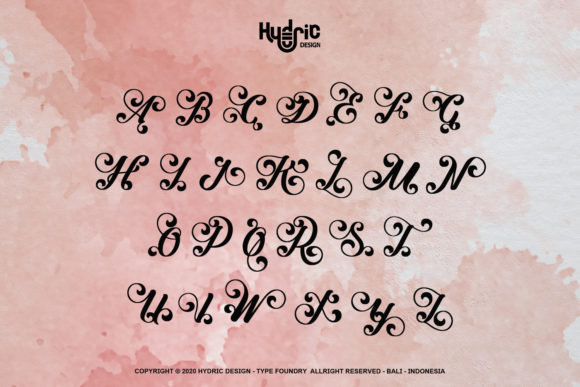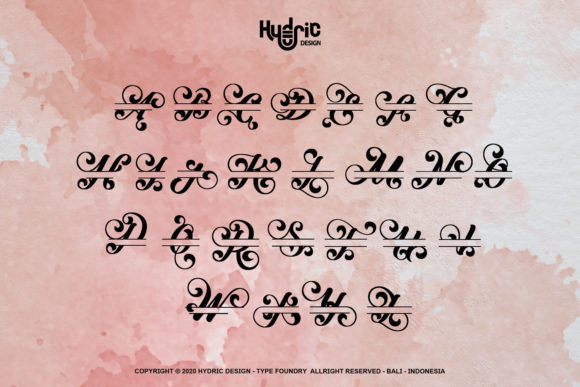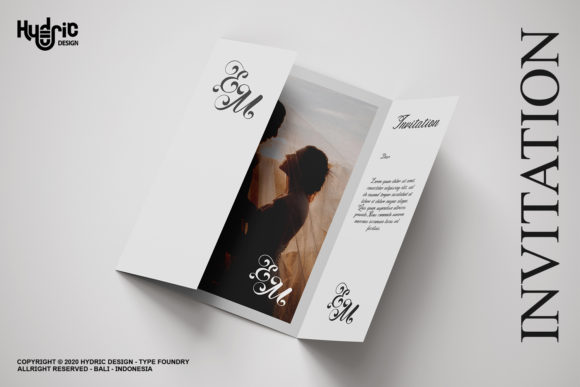
Introduction to Monogram Calestial Linen Font
Monogram Calestial Linen is a luxurious decorative font.
This versatile script font has a wide spectrum of applications ranging from greeting cards to headlines and is guaranteed to add a romantic feel to your next project .